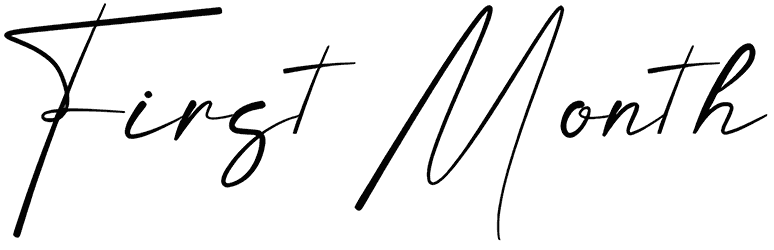
First Month Font
Which one can be a better selection to make your design salient, simple lettering or a chic calligraphy one? This handwritten font can give a natural and elegant visual to your words. First Month font has a delicate and smooth face, and as a thank-you font, you can count on it to throw a modern mood into your layout.